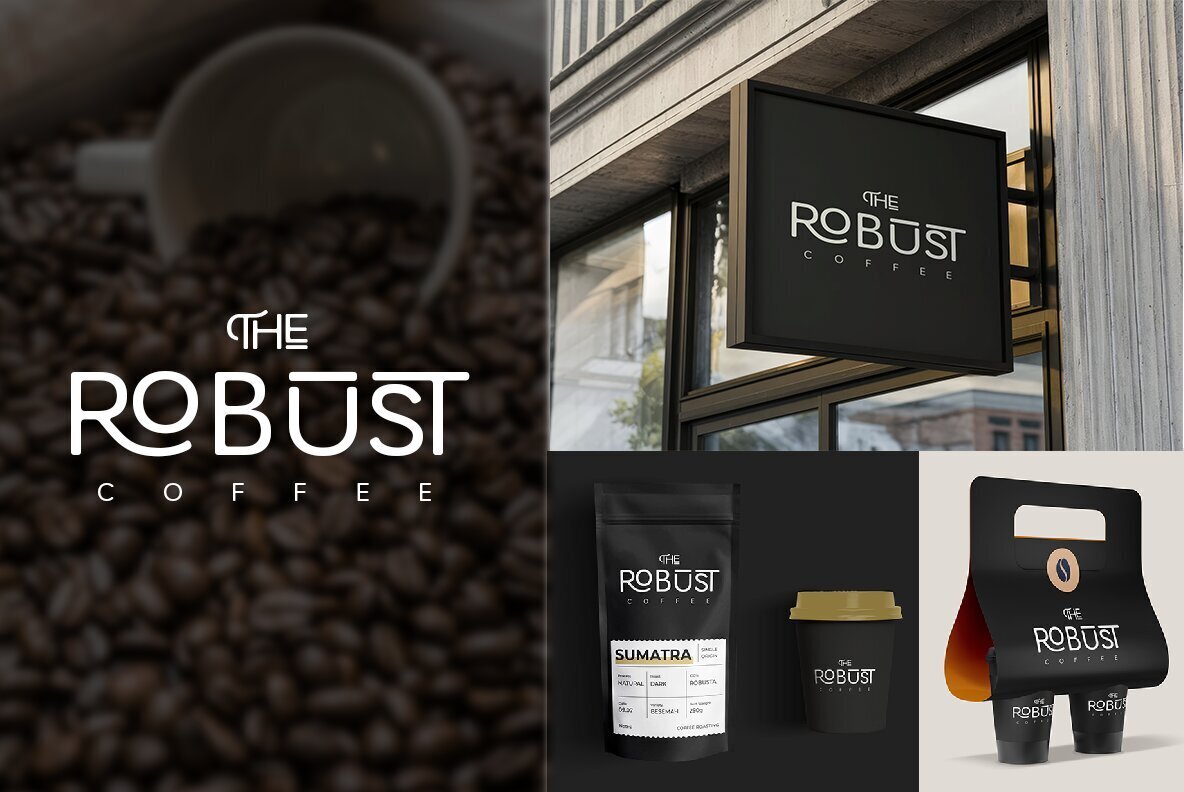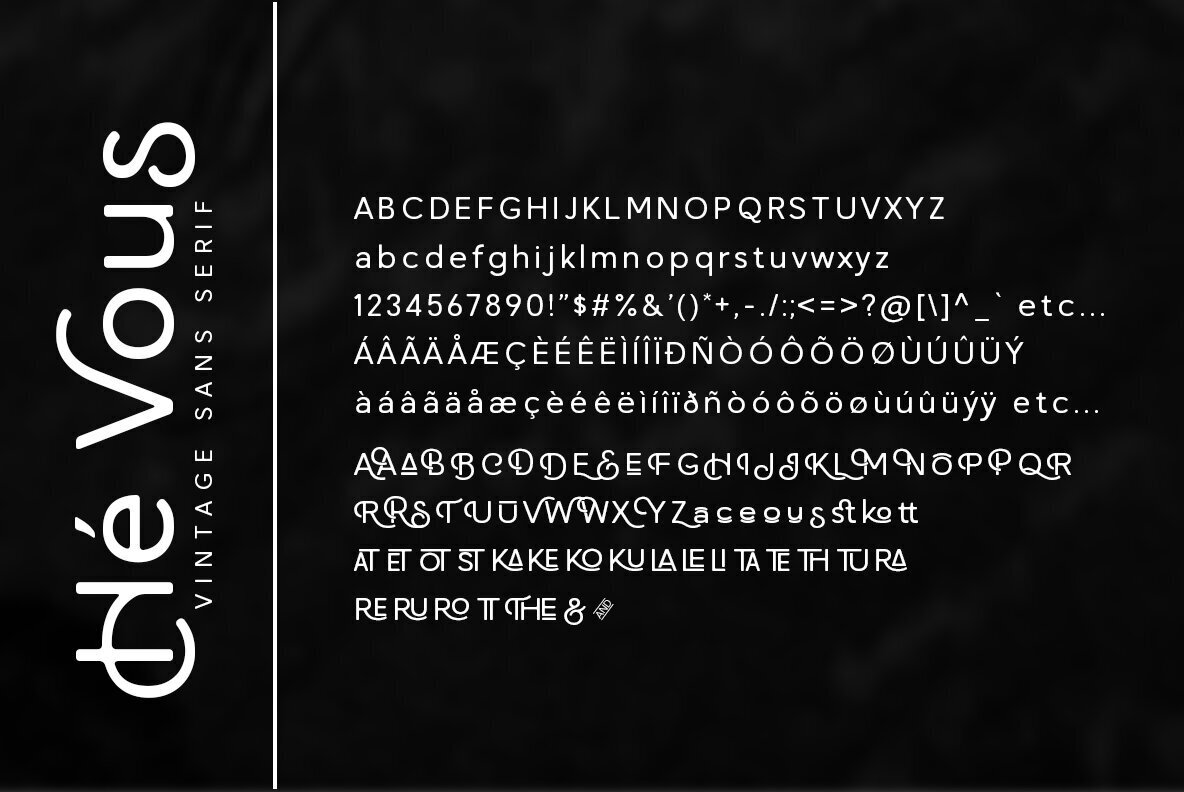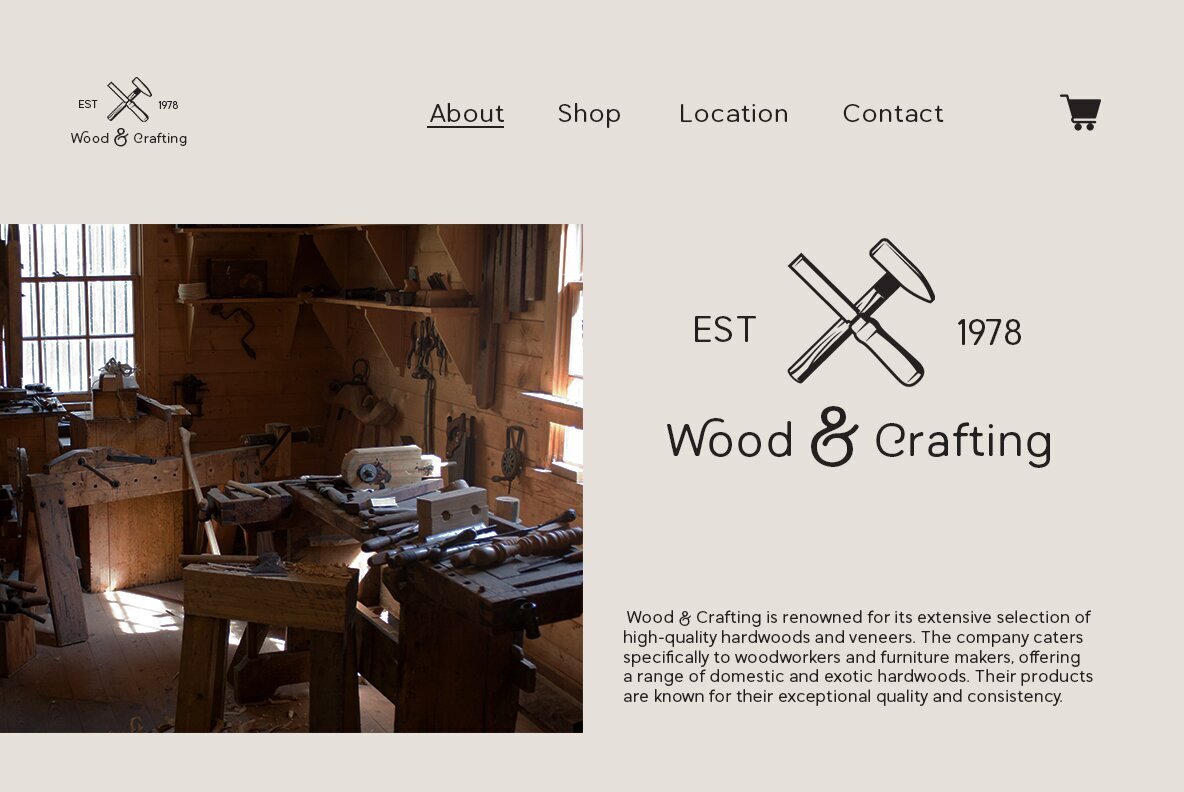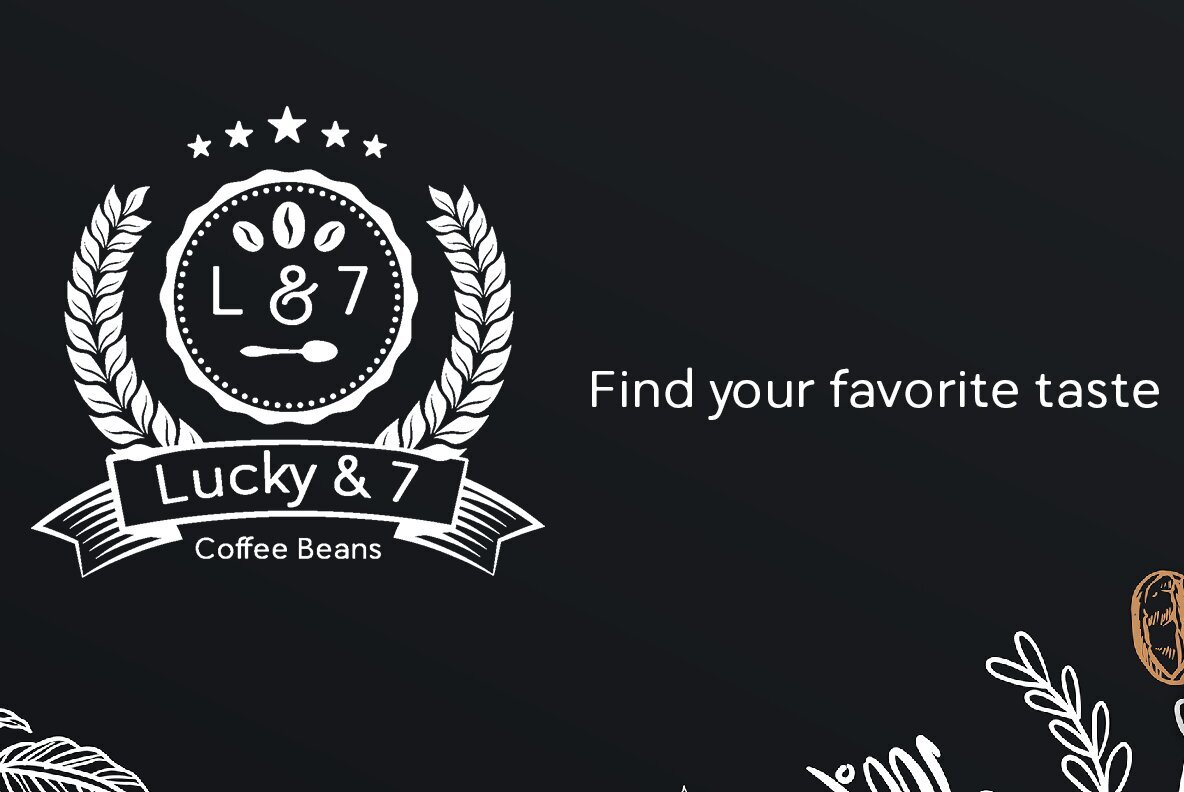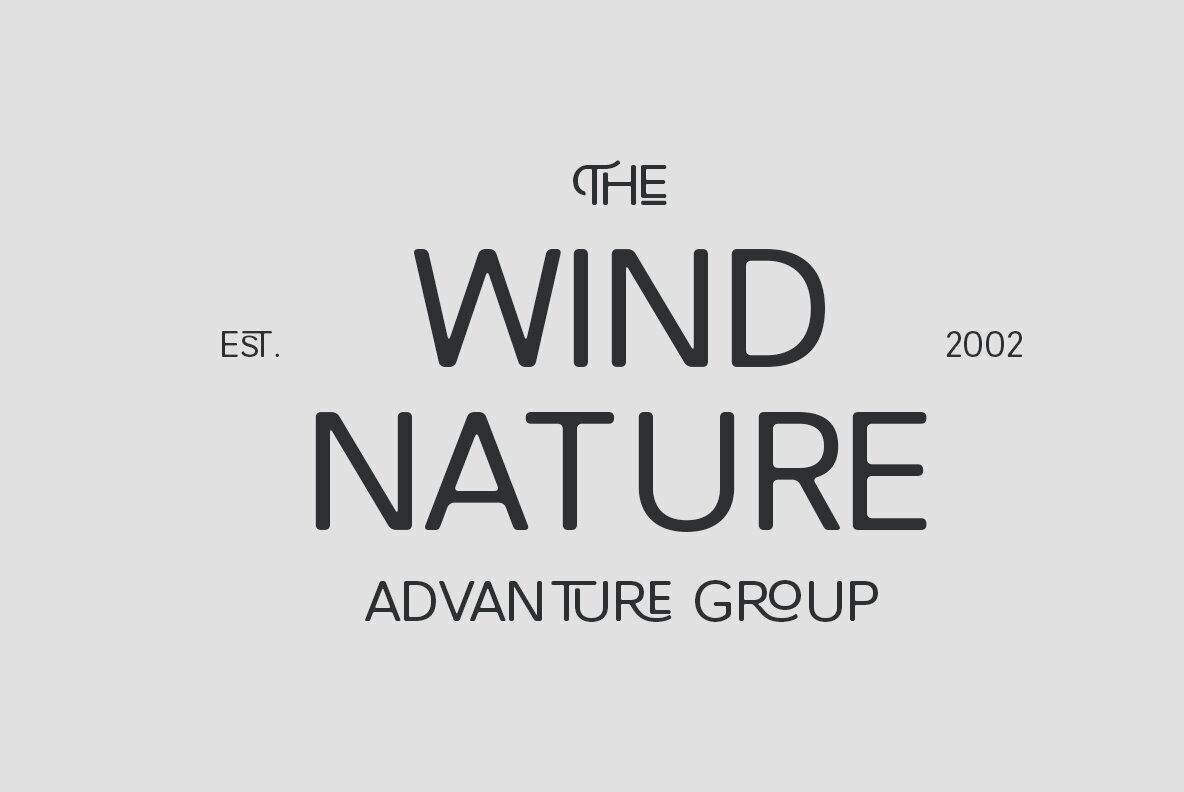
Hé Vous Font
Hé Vous is a distinctive vintage sans serif font, designed to evoke a sense of nostalgia while maintaining a modern, clean aesthetic. Created by Mytype Studio, this font offers a unique blend of retro and contemporary vibes, making it perfect for a variety of design projects. Design Characteristics: Hé Vous is a versatile and stylish vintage sans serif font that brings together the best of both worlds: the charm of retro design and the clarity of modern typography. Whether you're looking to add a touch of nostalgia to your project or simply want a unique font with a distinctive personality, Hé Vous is an excellent choice.